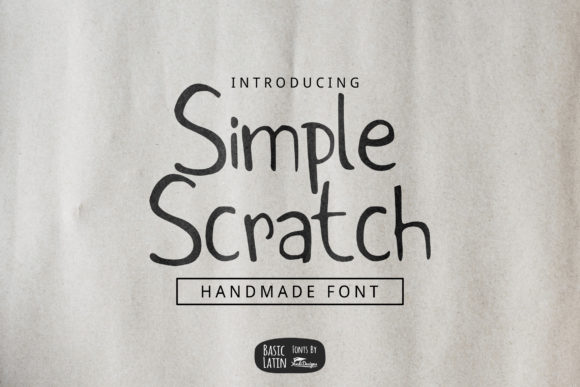
Immerse yourself in the whimsical world of Simple Scratch, a font crafted to inspire creativity and add a touch of playfulness to your designs. This charming and carefree font, designed by YandiDesigns, is perfect for capturing the vibrant energy of childhood and adding a dash of nostalgia to your projects.
Discover a symphony of styles within Simple Scratch, a font family that offers a captivating collection of script fonts, each with its own unique flair. Explore the beauty of neat and vintage aesthetics, perfect for creating heartfelt quotes, posters that speak to the soul, and headlines that dance with joy.
With Simple Scratch, transform your designs into enchanting tales, captivating your audience with messages that feel both personal and profound. Express yourself with elegance and authenticity, letting the free-flowing strokes of this font guide your imagination.
Simple Scratch is more than just a font; it's an invitation to embark on a creative journey, where your words take on a life of their own. Embrace the magic of handwritten charm and watch your designs flourish with a touch of whimsy and wonder.
So, whether you're a designer seeking a font that evokes a sense of nostalgia or a creative enthusiast looking to add a personal touch to your projects, Simple Scratch is your perfect companion. Dive into a world of creativity and let your imagination soar.